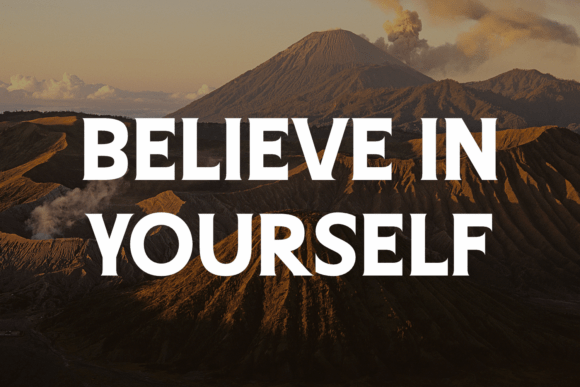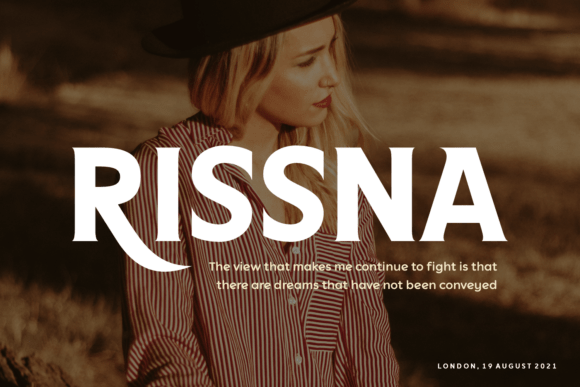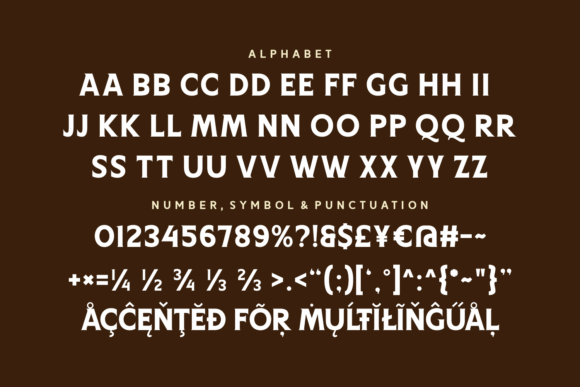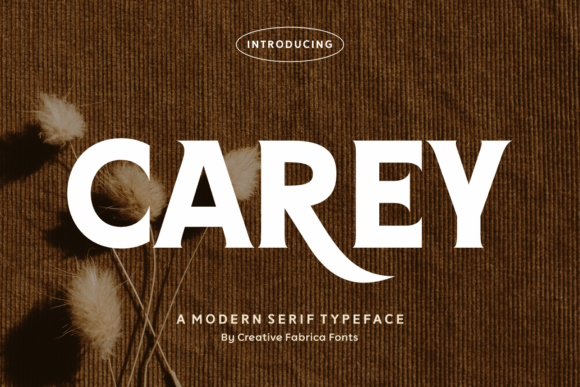
Introducing Carey Font: The Ultimate Choice for Bold and Modern Designs
In the world of typography, a font can make or break a design. When it comes to creating eye-catching headlines, standout branding, and memorable visuals, designers need a font that is both bold and elegant. This is where Carey Font comes in – a contemporary serif font that is taking the design world by storm. With its dramatic contrast, unique details, and strong serifs, Carey is the perfect choice for modern fashion brands, packaging, editorial layouts, social media graphics, and advertising.
The Characteristics of Carey Font
Carey Font is a high-impact serif font that boasts a range of characteristics that make it perfect for designers looking to create strong, memorable visuals. Some of its key features include:
- Bold and Contemporary Design: Carey Font has a bold and contemporary design that is perfect for creating eye-catching headlines and standout branding.
- Dramatic Contrast: The font features dramatic contrast between thick and thin strokes, giving it a luxurious and elegant feel.
- Unique Details: Carey Font has unique details that set it apart from other serif fonts, making it perfect for designers looking to create something truly unique.
- Strong Serifs: The font features strong serifs that add a touch of sophistication and elegance to any design.
- Stylish Curves: Carey Font also features stylish curves that add a touch of personality to any design.
Perfect for Modern Fashion Brands and Designers
Carey Font is specifically designed for modern fashion brands and designers who want to create strong, memorable visuals with a modern luxury aesthetic. The font is perfect for:
- Fashion Branding: Carey Font is perfect for creating bold and eye-catching branding for fashion brands.
- Packaging Design: The font is also great for packaging design, adding a touch of luxury and sophistication to any product.
- Editorial Layouts: Carey Font is perfect for editorial layouts, including magazines, newspapers, and books.
- Social Media Graphics: The font is also great for social media graphics, including Instagram posts, Facebook ads, and more.
- Advertising: Carey Font is perfect for advertising, including billboards, print ads, and digital ads.
Why Choose Carey Font?
So why choose Carey Font over other serif fonts? Here are just a few reasons:
- Unique and Memorable: Carey Font is a unique and memorable font that will help your design stand out from the crowd.
- High-Impact: The font is high-impact, making it perfect for creating bold and eye-catching headlines and branding.
- Versatile: Carey Font is versatile, making it perfect for a range of design applications, from fashion branding to editorial layouts.
- Easy to Read: Despite its bold design, Carey Font is easy to read, making it perfect for body text and other applications where readability is key.
Tips for Using Carey Font
Here are a few tips for using Carey Font in your designs:
- Use it as a Headline Font: Carey Font is perfect for use as a headline font, adding a touch of drama and elegance to any design.
- Pair it with a Sans-Serif Font: For body text, pair Carey Font with a sans-serif font to create a striking contrast.
- Experiment with Colors: Carey Font looks great in a range of colors, from bold and bright to muted and pastel.
- Don’t be Afraid to Get Creative: Finally, don’t be afraid to get creative with Carey Font – experiment with different styles, colors, and effects to create something truly unique.
In conclusion, Carey Font is a bold and contemporary serif font that is perfect for designers looking to create strong, memorable visuals with a modern luxury aesthetic. With its dramatic contrast, unique details, and strong serifs, Carey is the perfect choice for modern fashion brands, packaging, editorial layouts, social media graphics, and advertising. So why not give it a try and see the impact it can have on your designs?